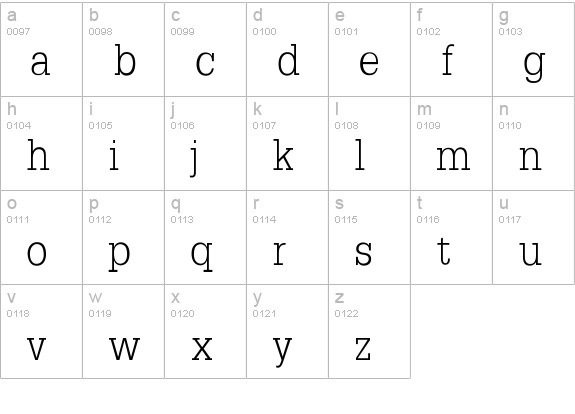
Savanne Font Details
Savanne font is a stunningly elegant typeface that effortlessly blends classic sophistication with contemporary charm. Its delicate curves and graceful lines make it perfect for a wide range of design projects, from wedding invitations to branding materials. With its unique and stylish letterforms, Savanne font captures attention and adds a touch of luxury to any project. The flowing strokes and intricate details give this font a sense of elegance and refinement, making it ideal for high-end designs that require a touch of glamour. But what sets Savanne font apart is that it is not only beautiful, but also free. That's right – this exquisite font is freely available to download at FontsMarket.com. Now you can enjoy the unparalleled beauty of Savanne font without breaking the bank. Whether you're a professional designer or a DIY enthusiast, Savanne font is a must-have addition to your font collection. Its versatility and timeless appeal make it suitable for a variety of design applications, from fashion magazines to luxury branding. So why wait? Download Savanne font today from FontsMarket.com and discover the endless possibilities it offers. With its free availability, impeccable design, and undeniable elegance, Savanne font is the perfect choice for anyone looking to elevate their designs to the next level.